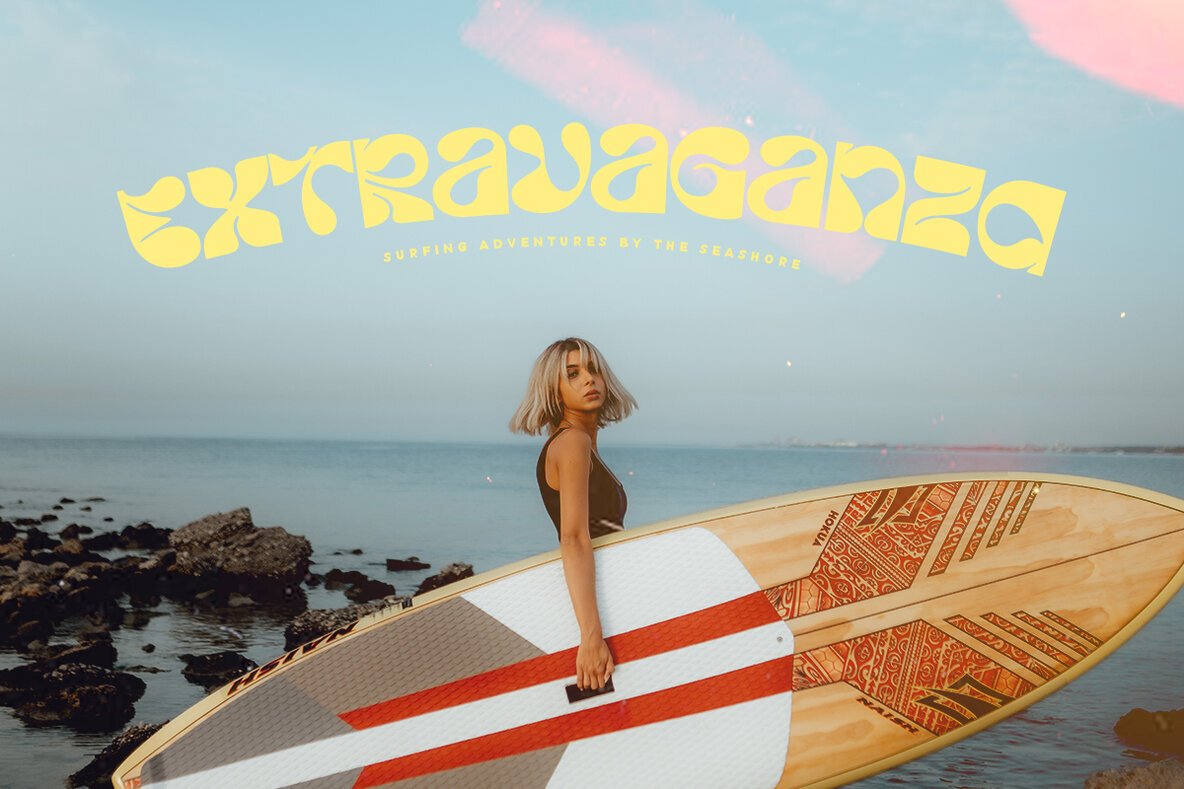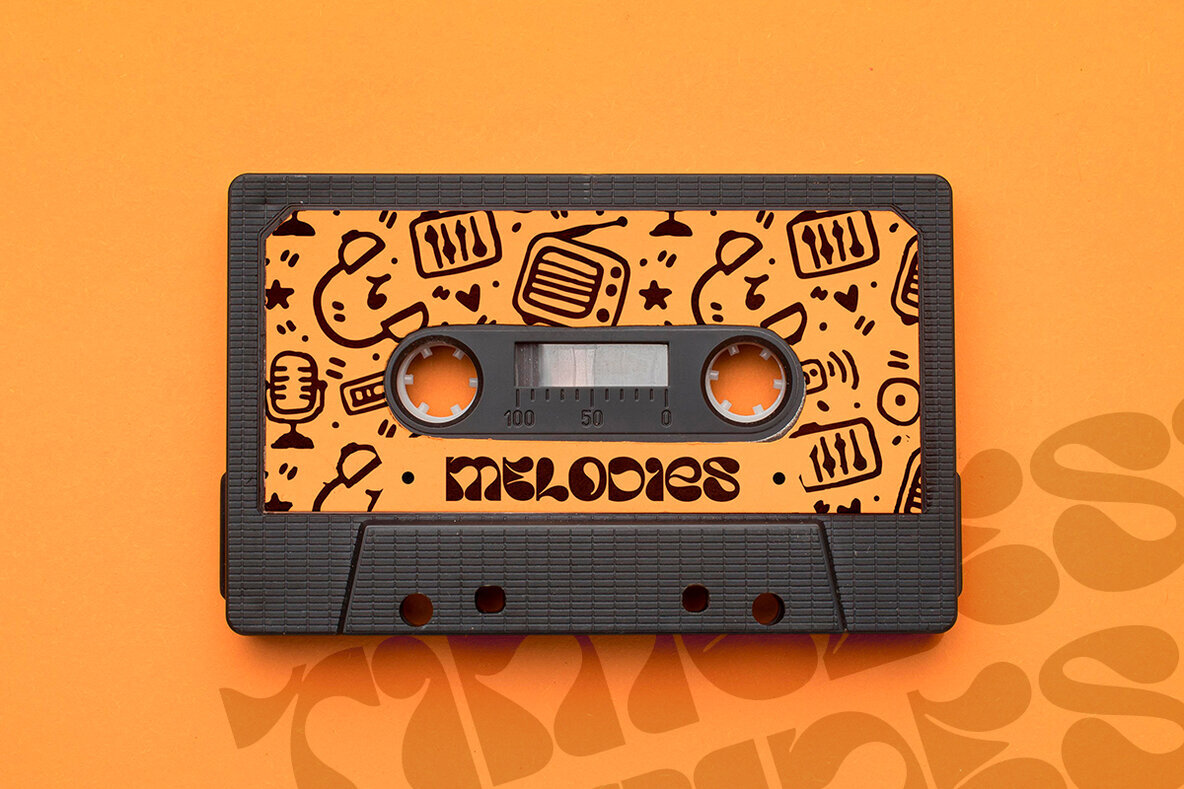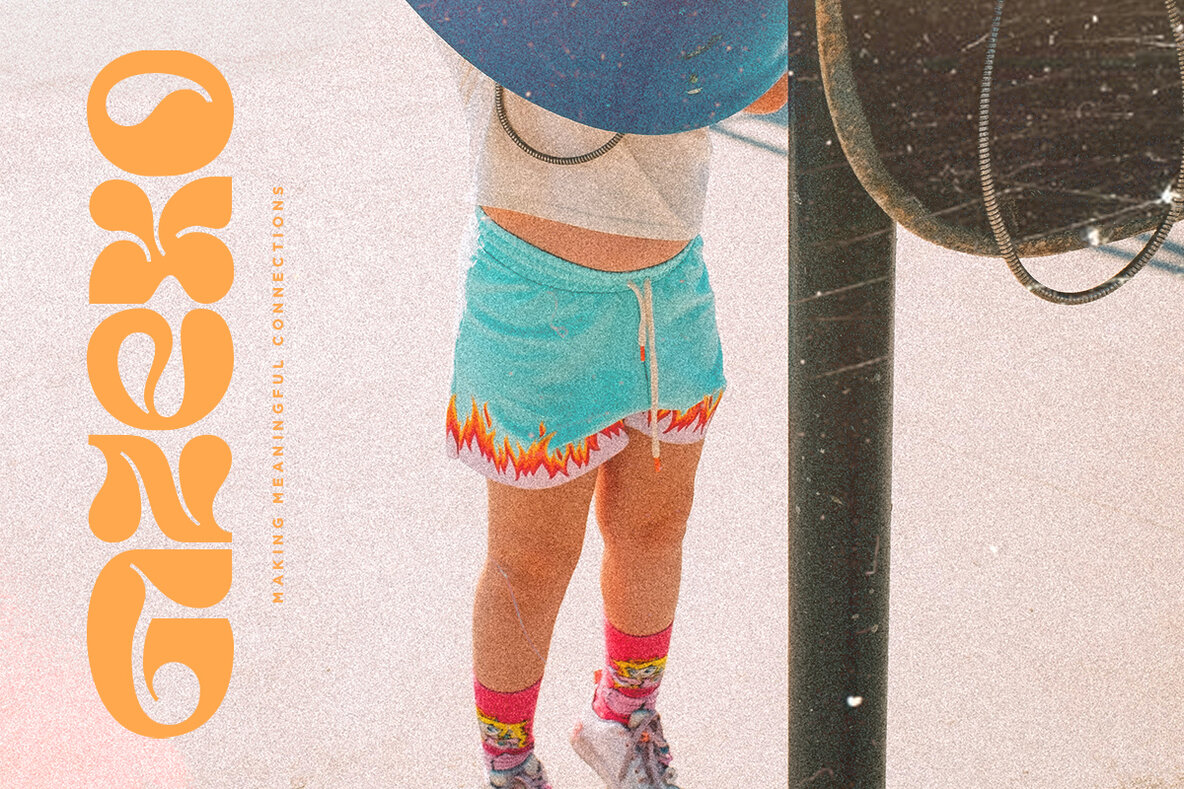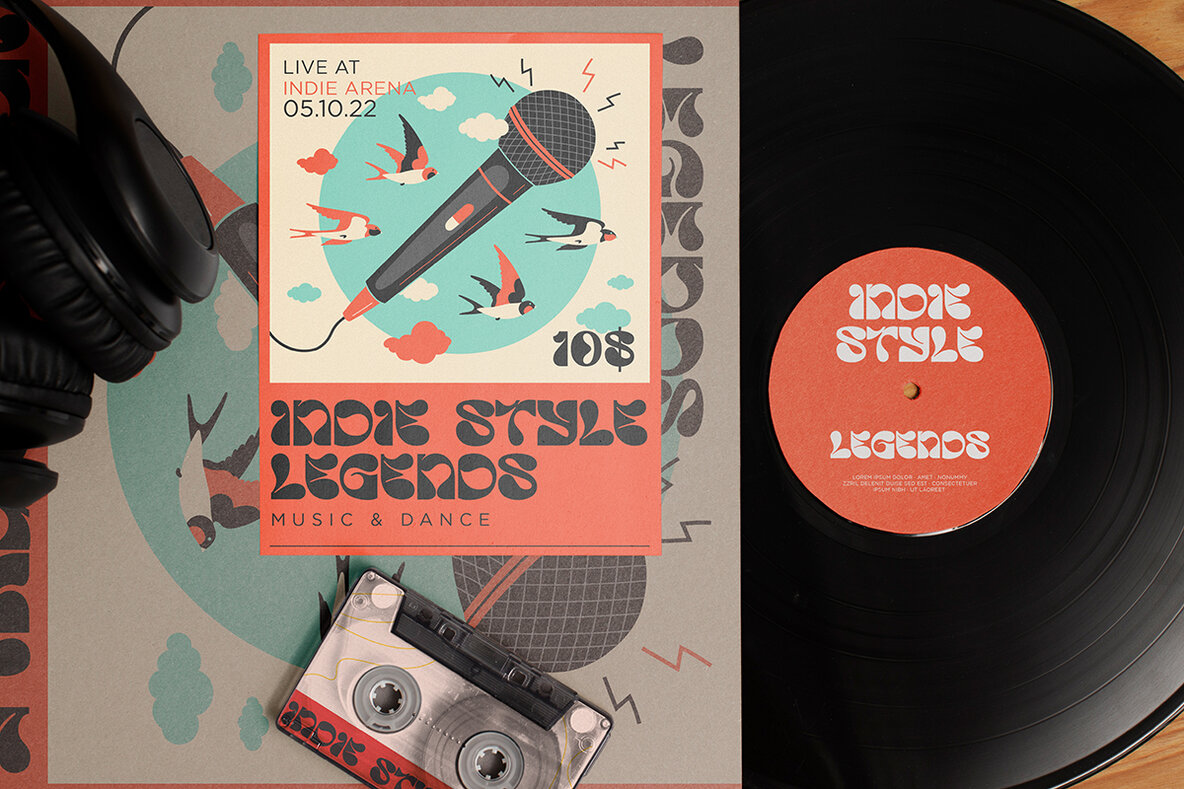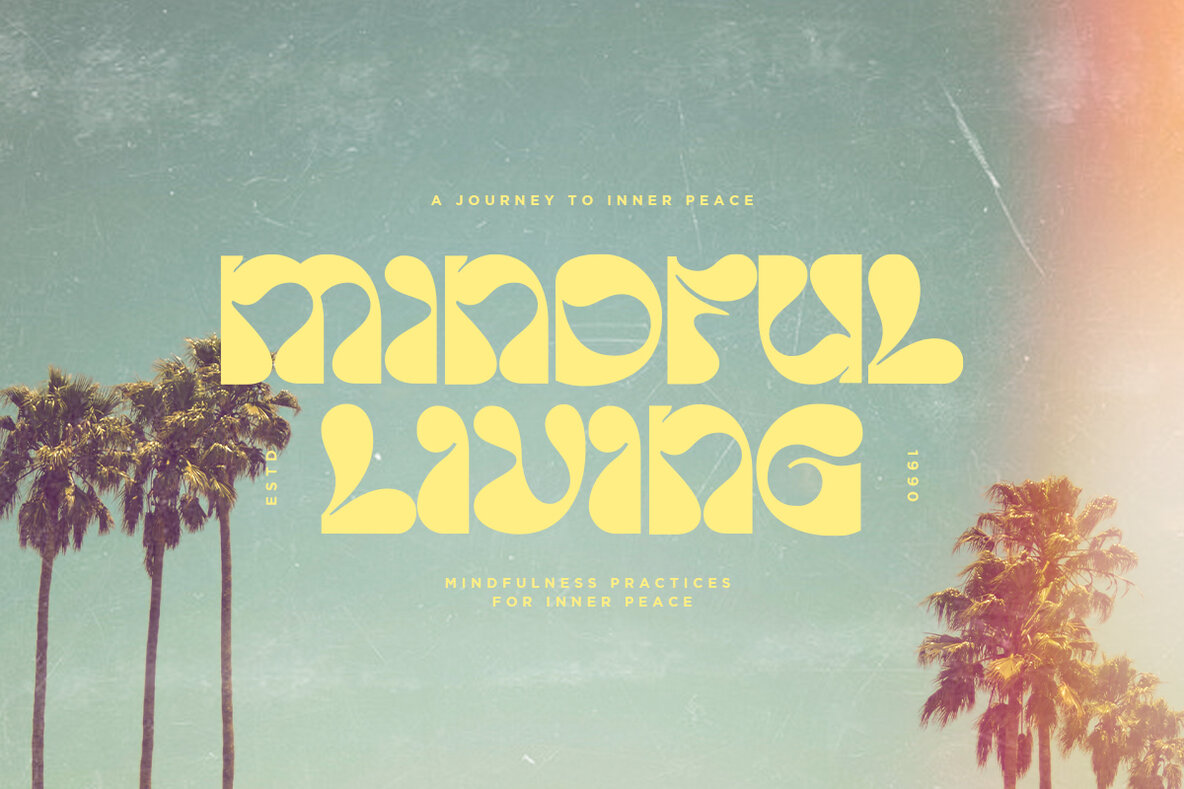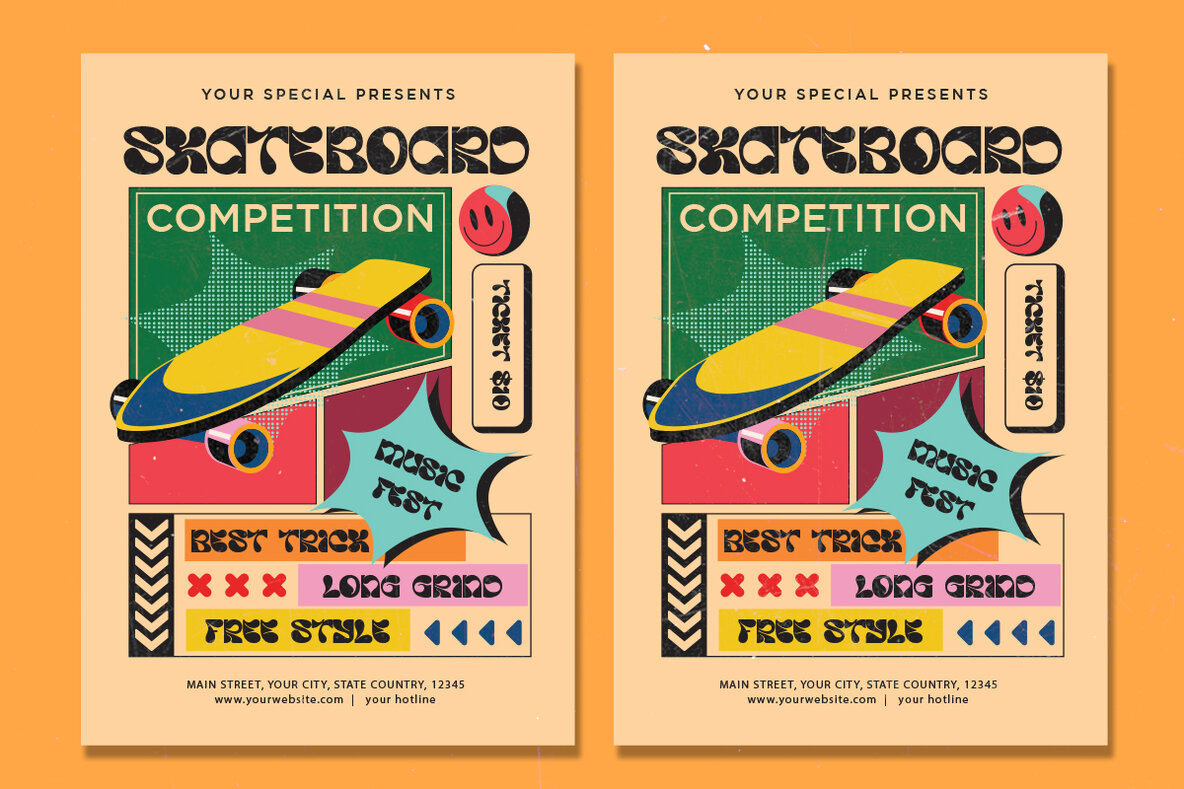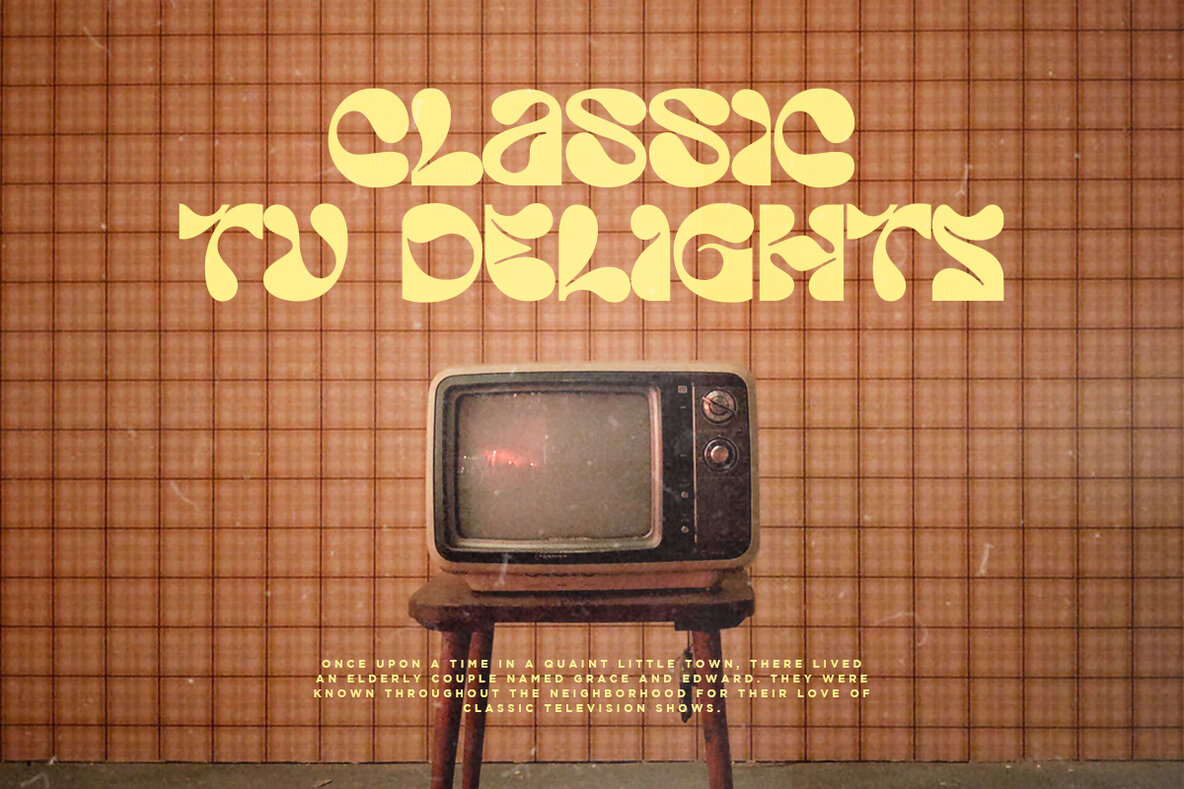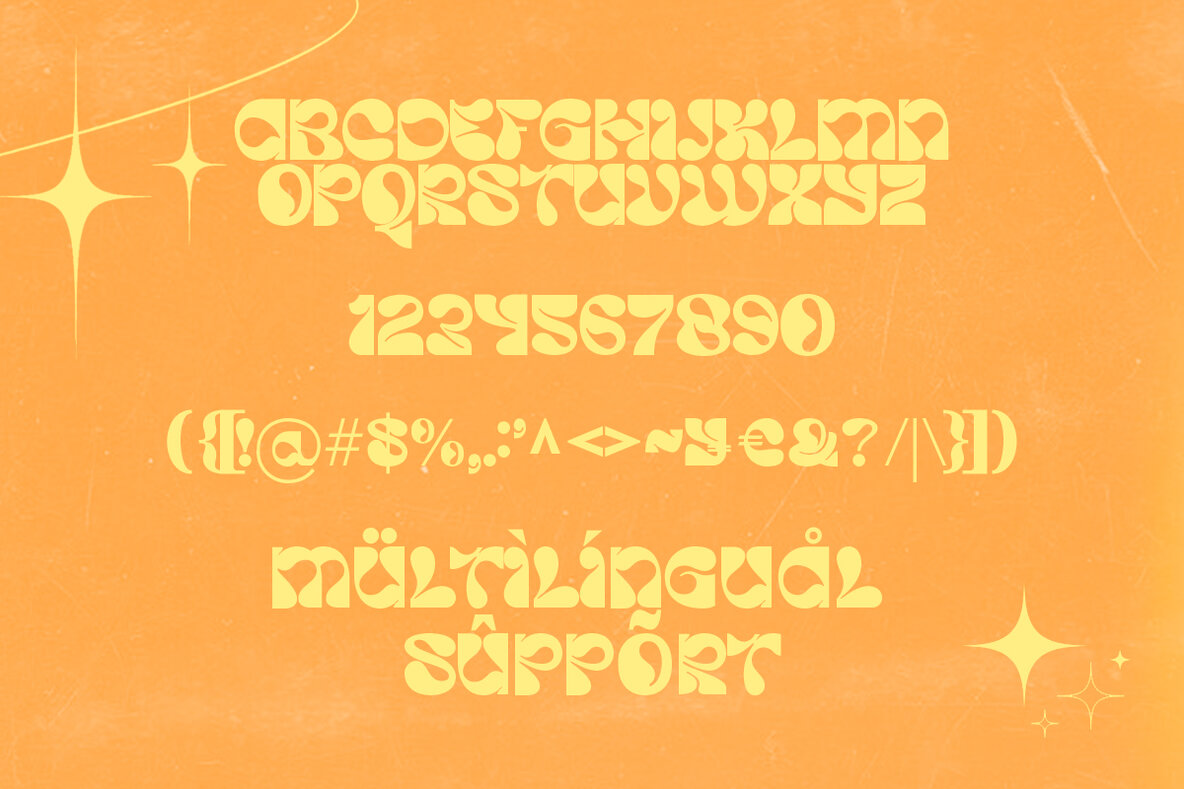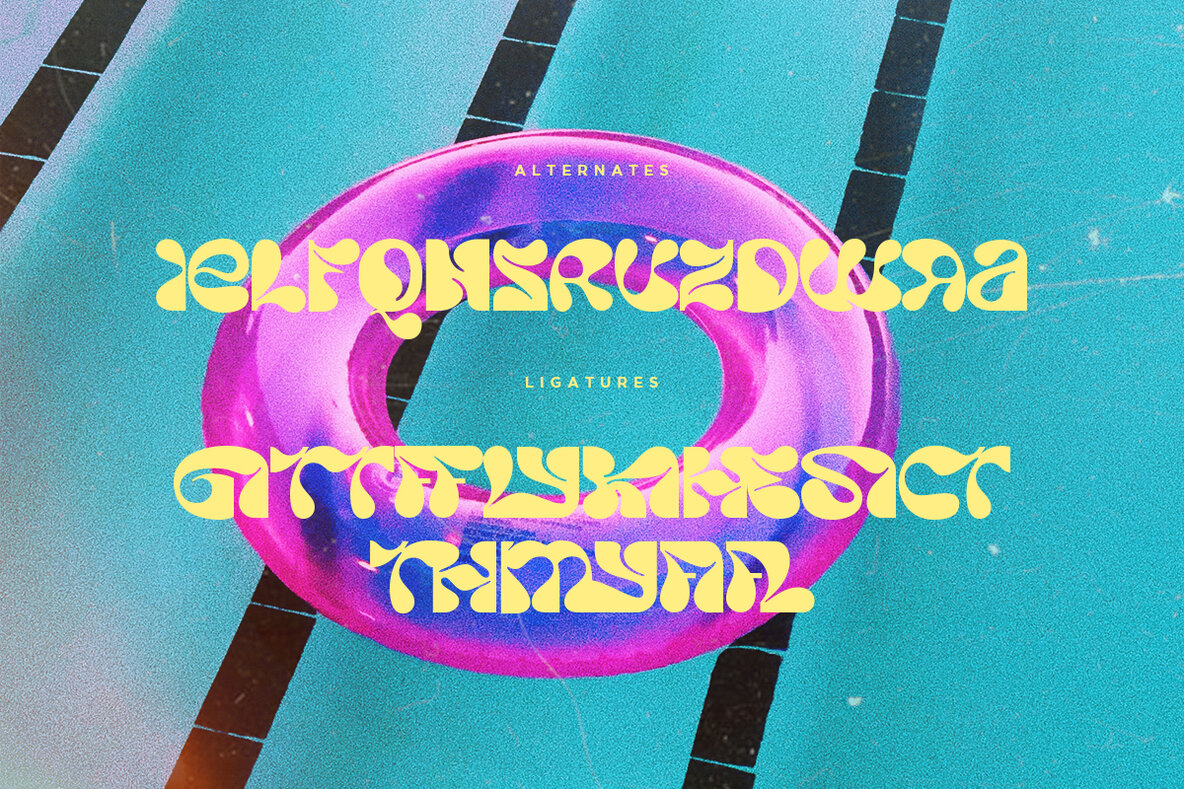
Lyzero Font
Lyzero Regular
Lyzero is a font with a groovy retro theme that brings a classic feel and a style that is making a comeback. With its unique, '70s-inspired design, Lyzero combines funky and vintage elements to create an eye-catching typography look. With sparkling characters and a vibrant style, this font is perfect for projects that want to bring a touch of nostalgia and retro fun to their designs. Lyzero is the perfect choice to bring a vibrant era feel to your visual communications.